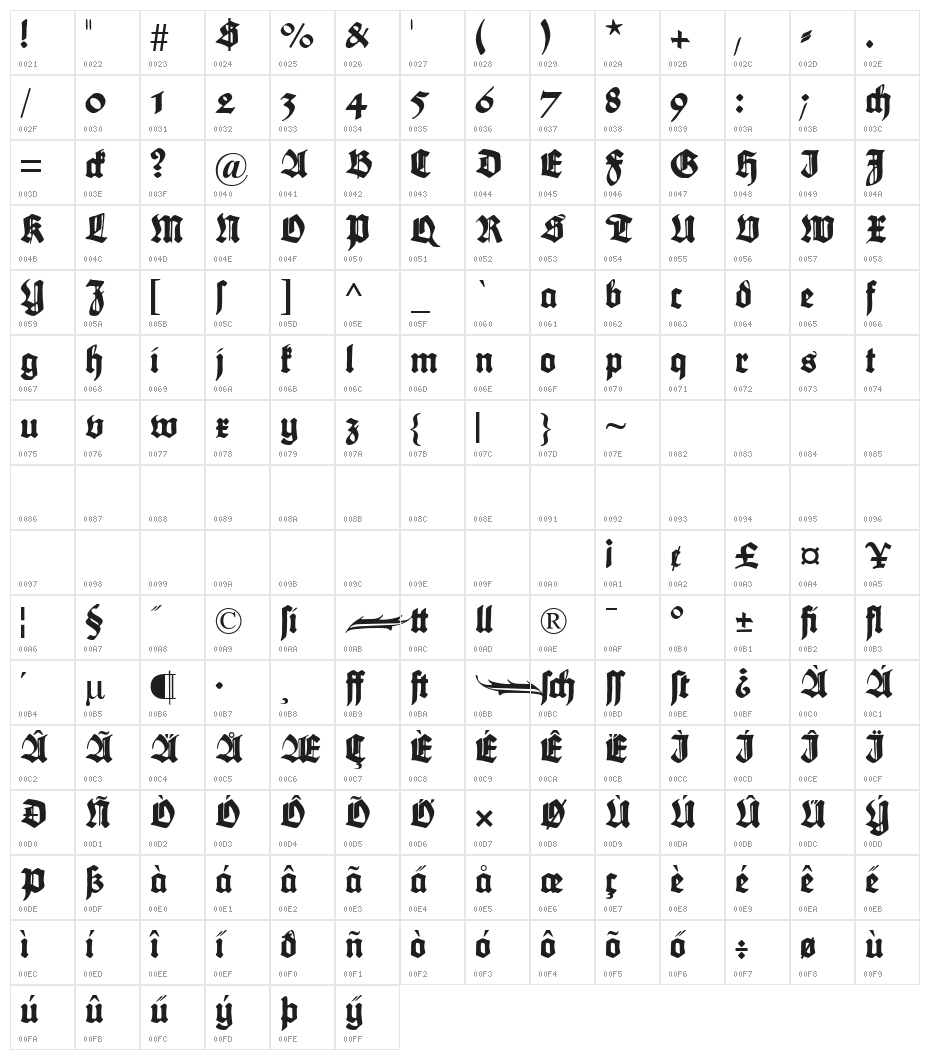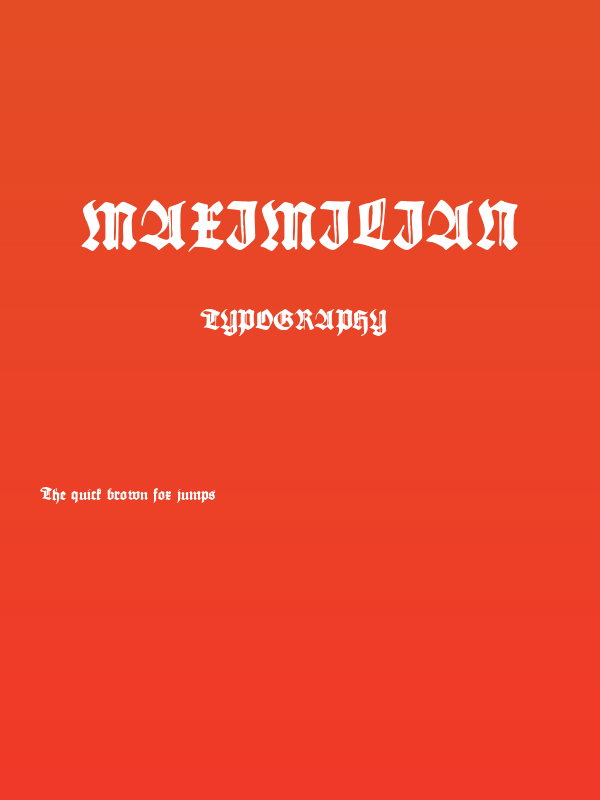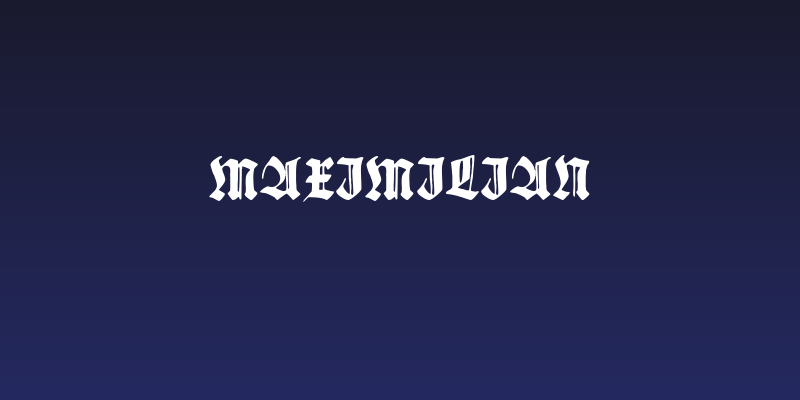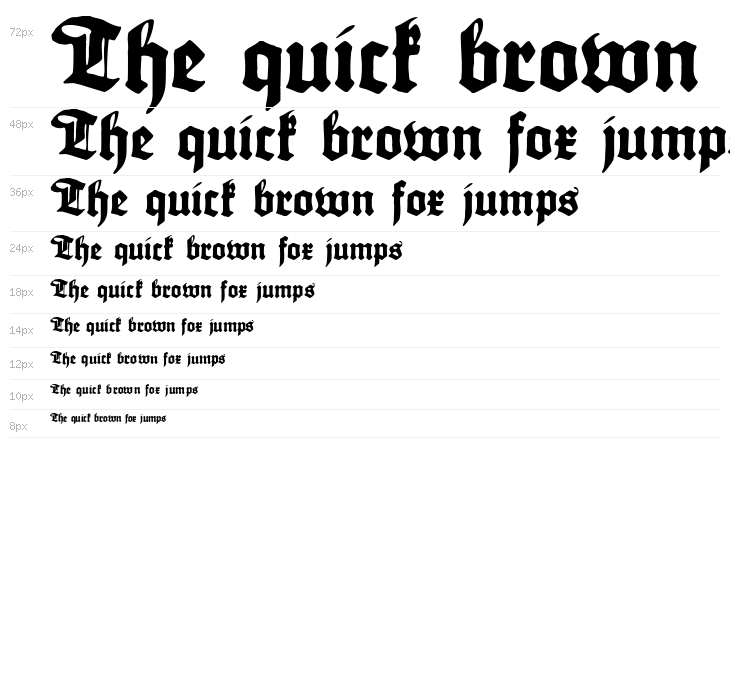
Maximilian Font
| Kategorien | Gothic |
| Gesamtstil | Vintage |
| Anwendungsfall | Headlines, Logos, Decorative text |
| Vorgeschlagene Projekte | Ideal for historical documents, themed event invitations, book covers, and branding that requires a traditional touch. |